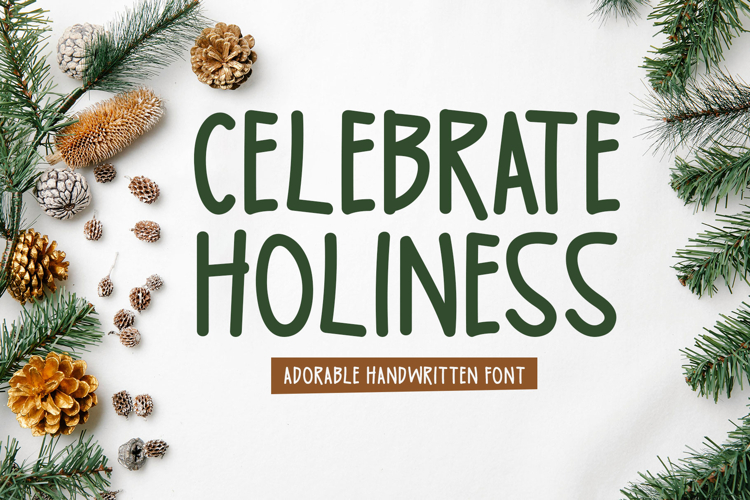
Introducing Celebrate Holiness!
Celebrate Holiness is an adorable handwritten font that radiates charm and positivity. Its playful yet graceful design makes it a wonderful choice for stationery, logos, apparel, print materials, website headers, invitations, music covers, posters, and more. This font is ideal for giving any project a joyful, celebratory feel and an exclusive, upbeat touch.